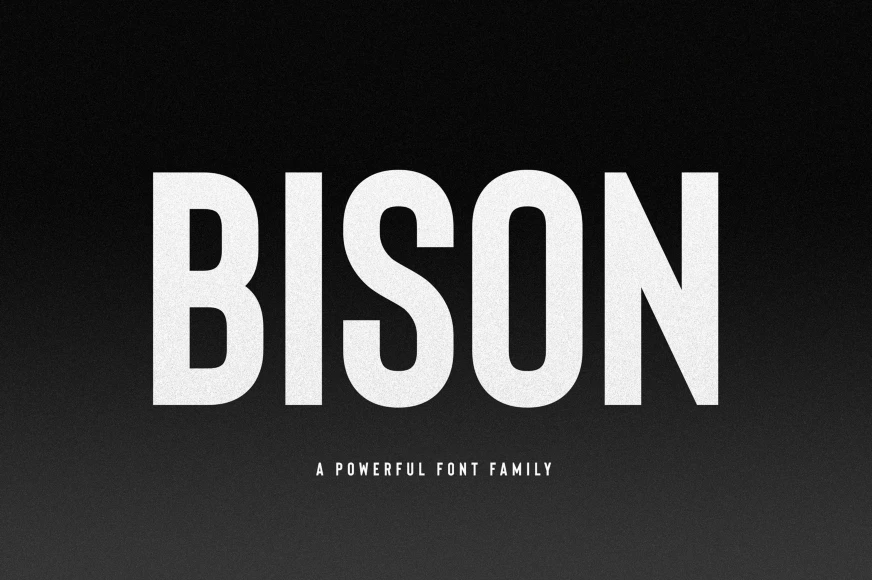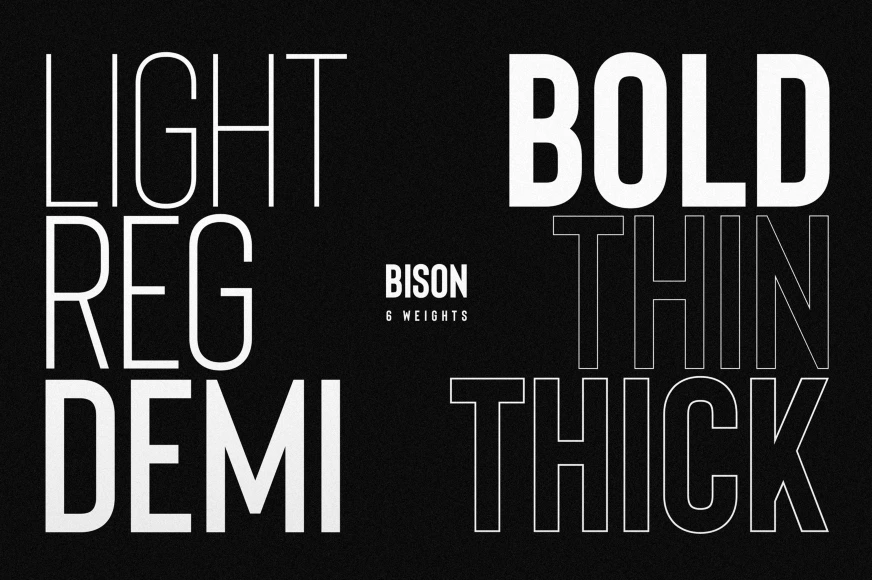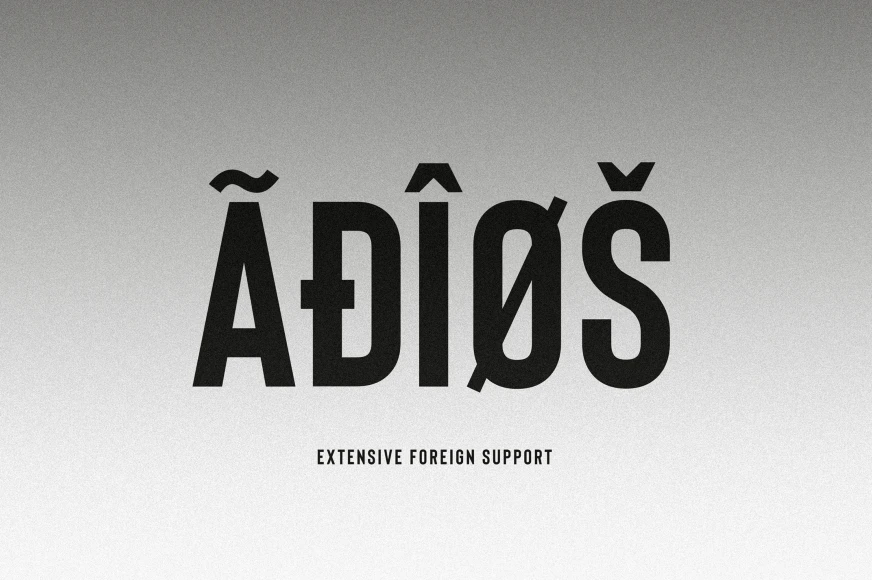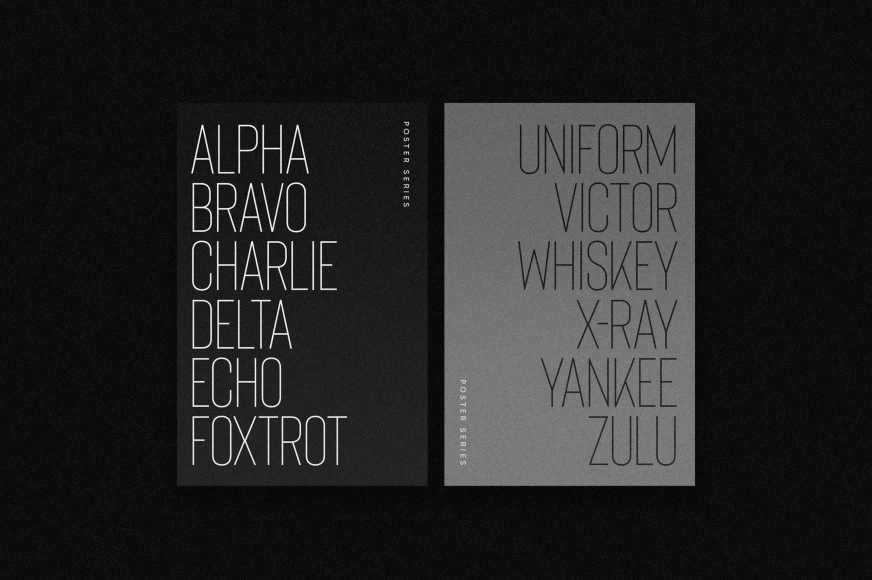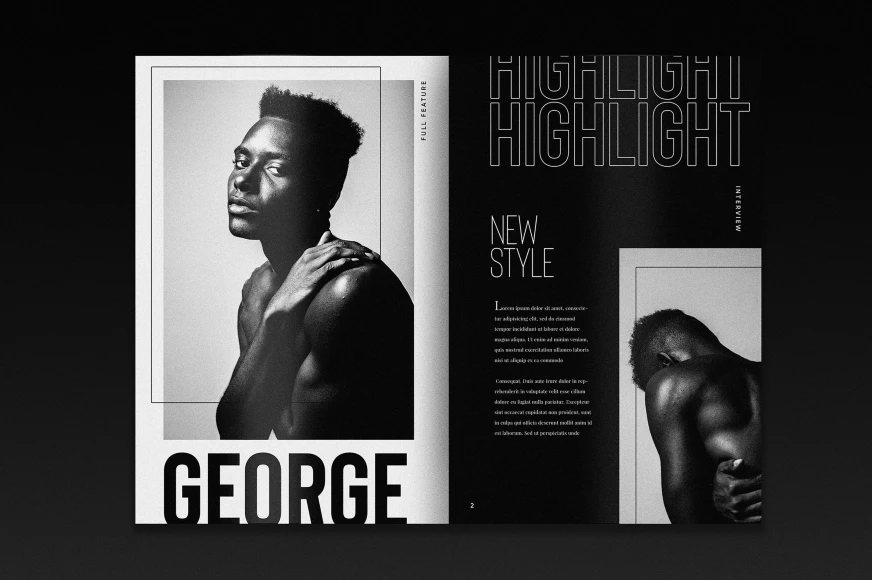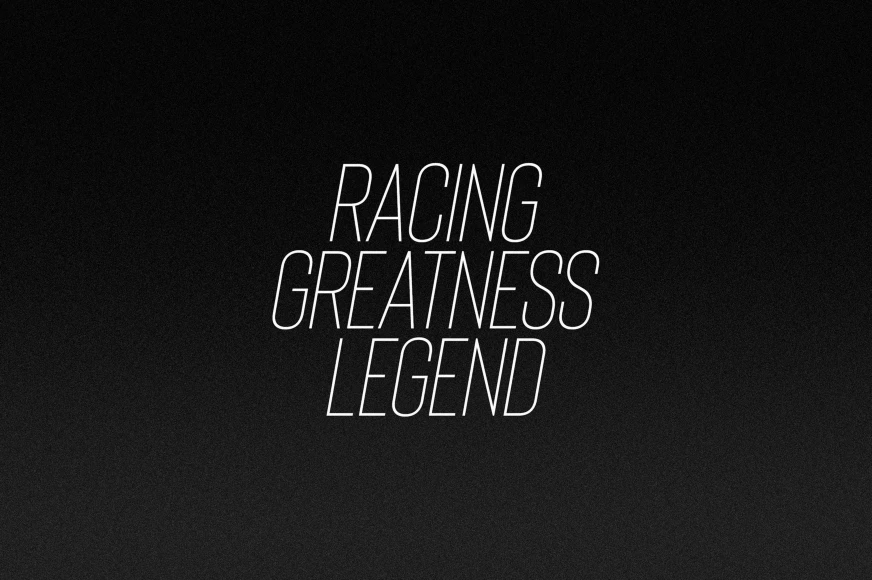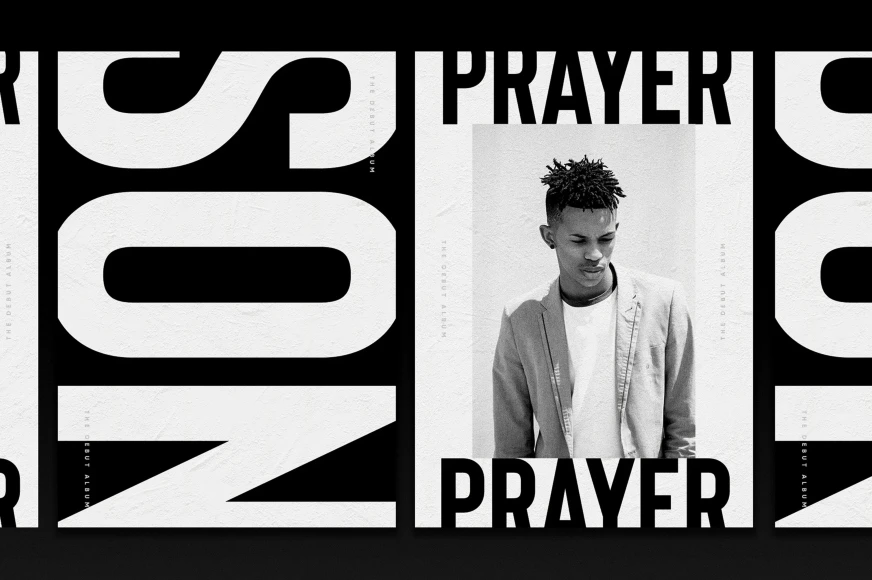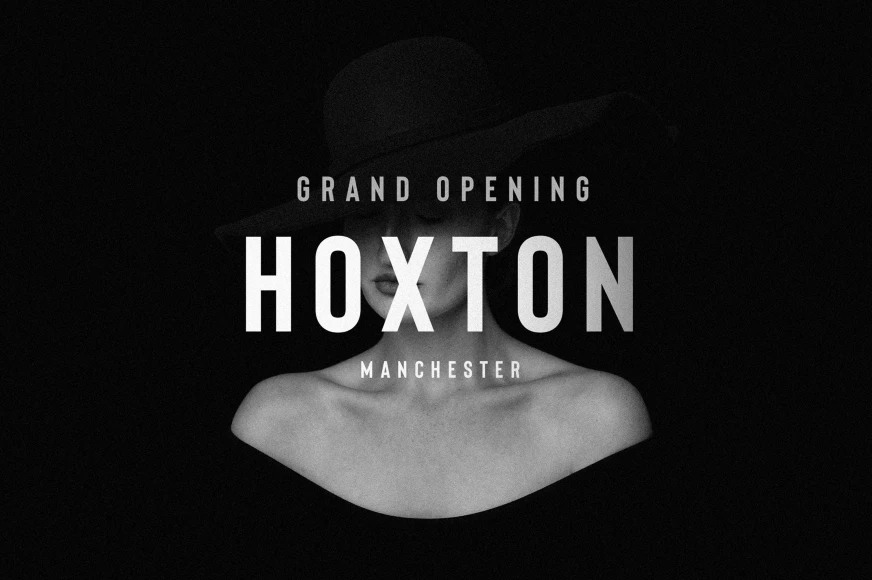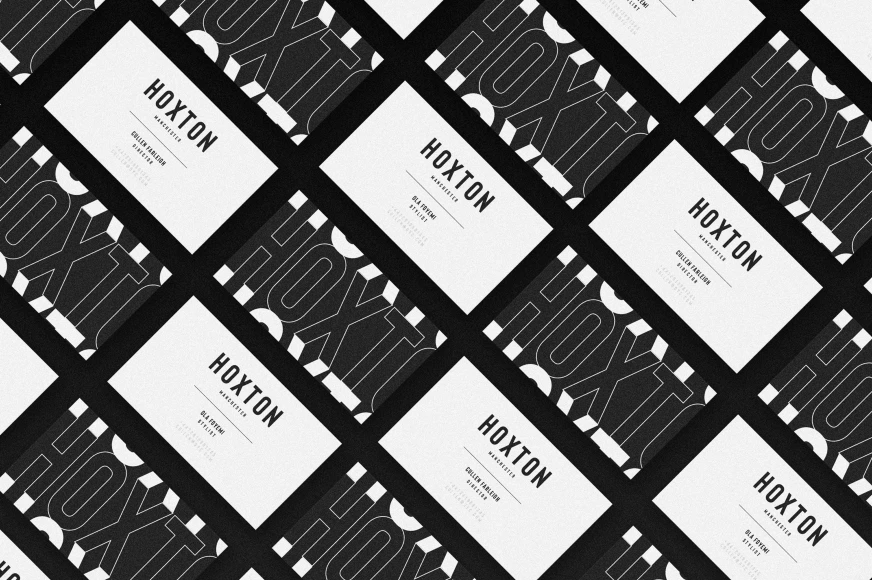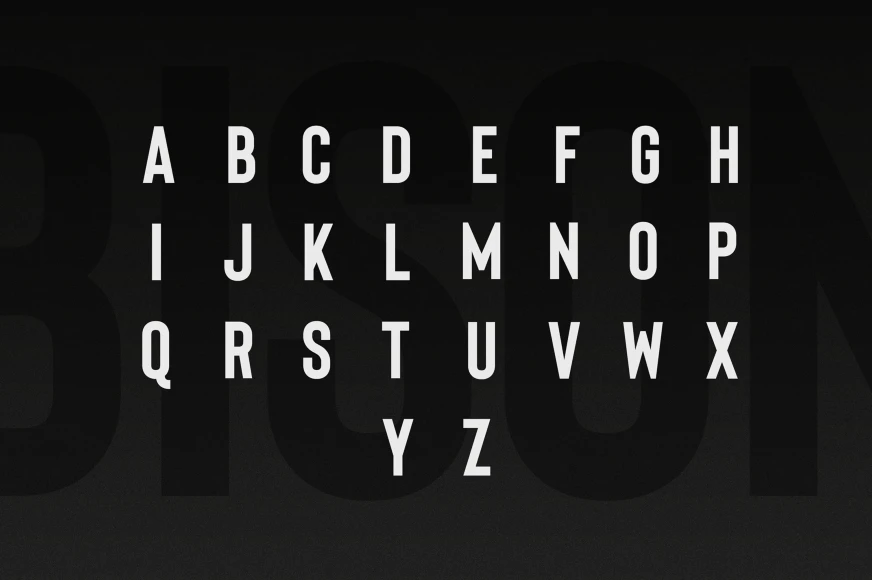
Bison
By Ellen Luff
Bison, from Ellen Luff Type Foundry, is a strong and sophisticated all-caps sans serif inspired by the power and resilience of its namesake. Sturdy and uncompromising, the style is felt through controlled letterforms with modern touches — a balance of hard lines and smooth curves. Each weight can stand on its own, dynamic and authoritative in its own right. Bison delivers impact without sacrificing elegance. Its distinctive character ensures Bison leaves a lasting impression no matter how it’s used.